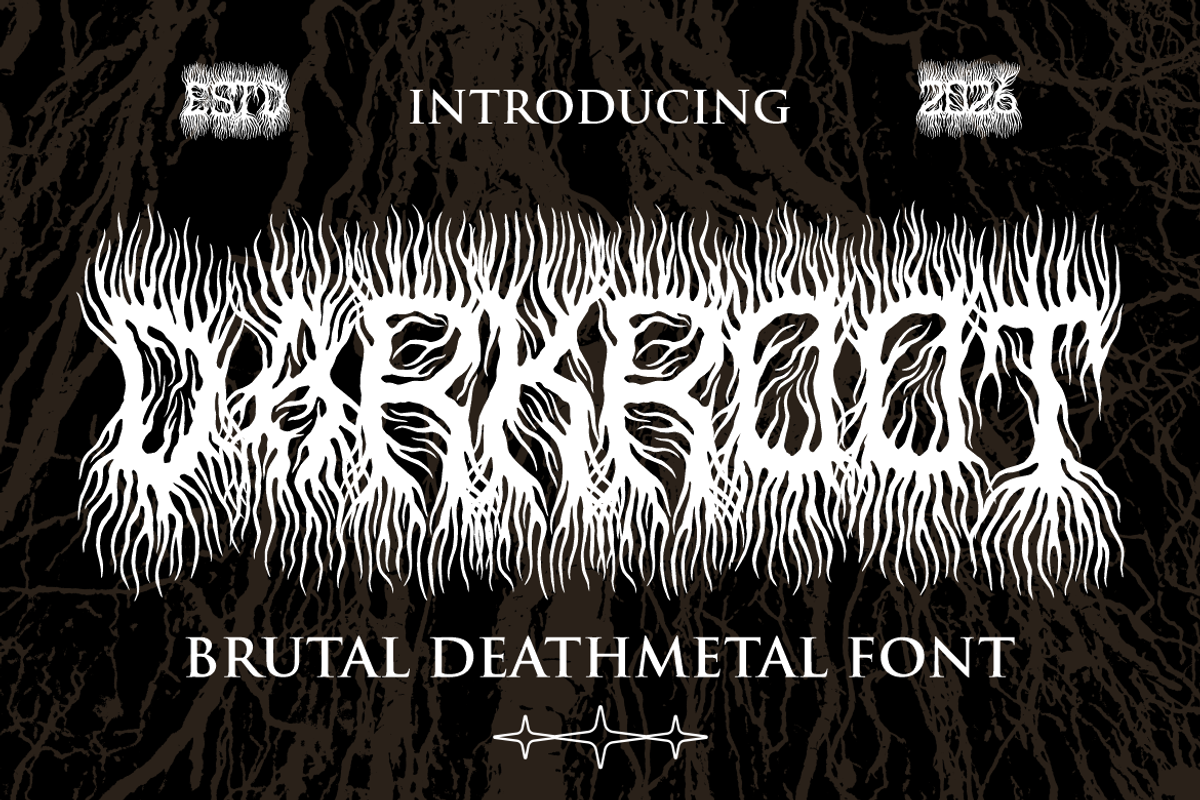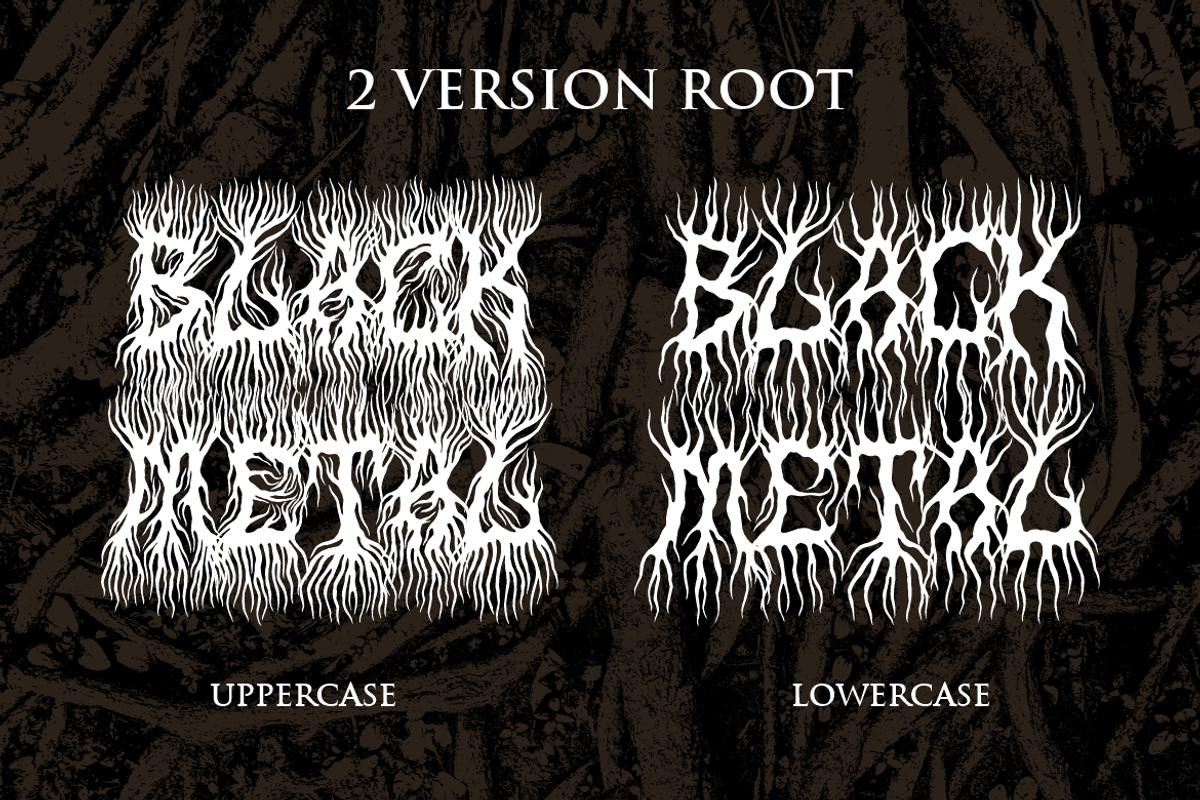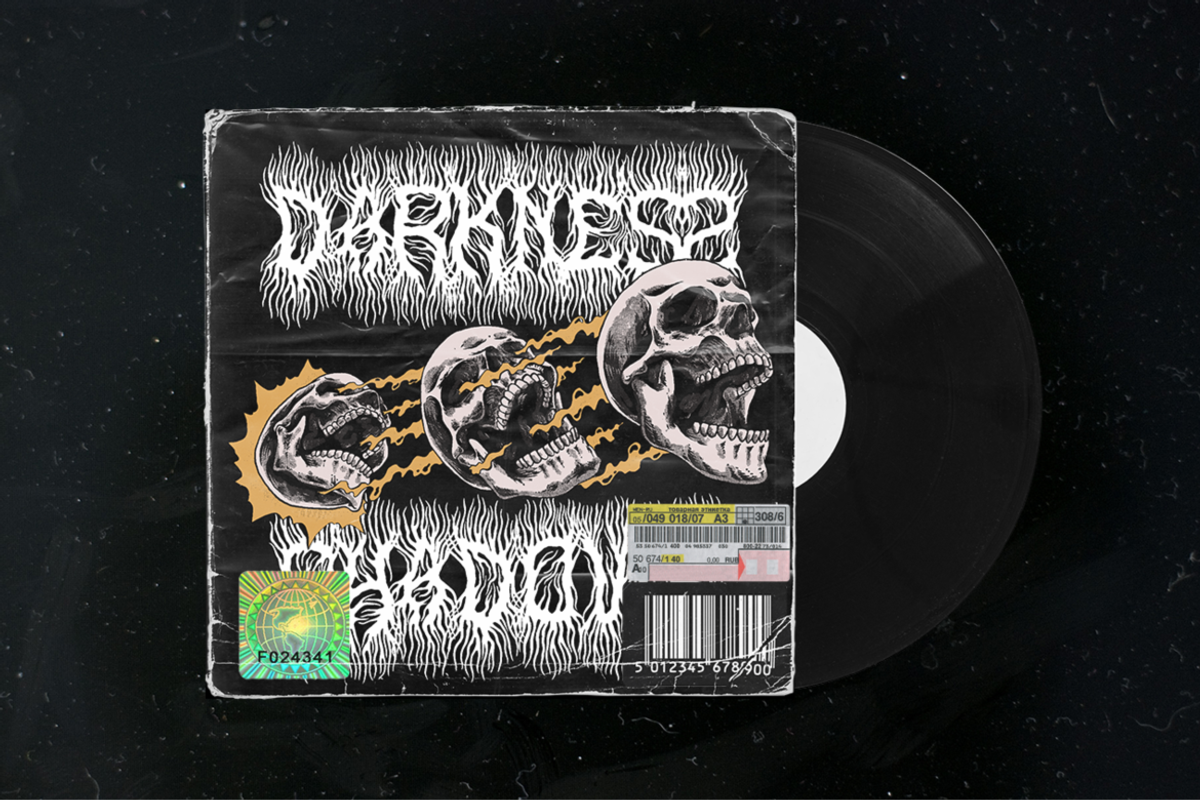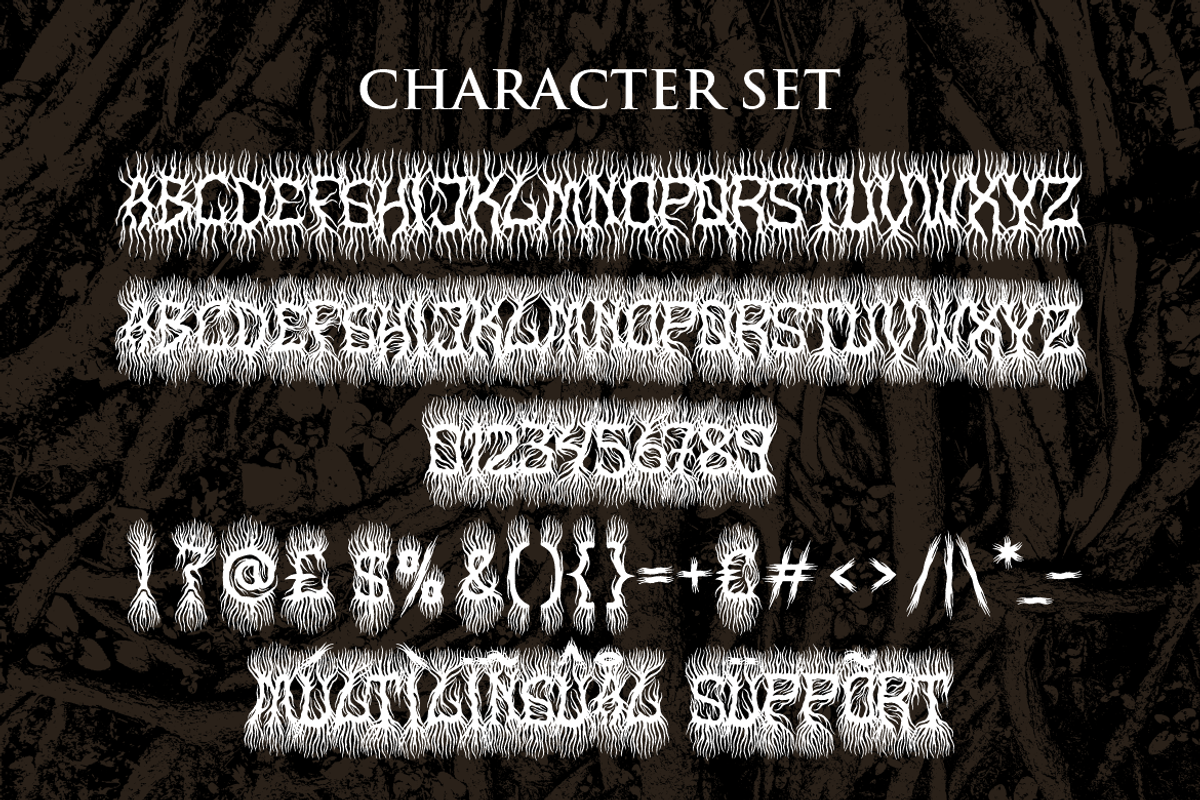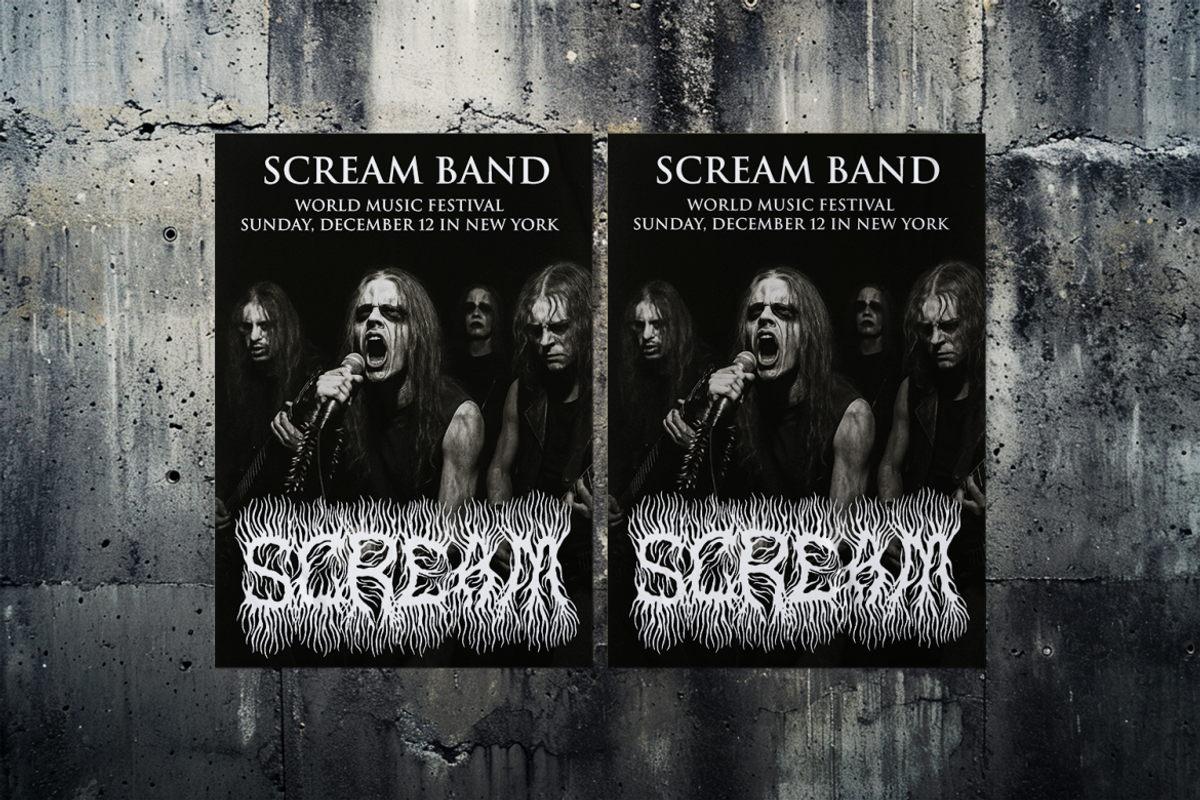
Dark Root Brutal Deathmetal Font
Dark Root Brutal Deathmetal Font is a display typeface designed to deliver raw intensity and uncompromising character. Each letterform is constructed with tall proportions and narrow inner spaces, creating a dominant vertical presence. Strokes appear uneven and organic, with sharp spikes and root-like extensions growing outward and downward. Thickness varies across characters, adding visual tension and a hand-forged feel. The texture feels rough and alive, as if carved or grown rather than drawn. Negative spaces are irregular and tightly packed, reinforcing a dense and intimidating rhythm. Uppercase and lowercase styles are designed separately, allowing controlled contrast and flexibility in composition. The overall structure prioritizes impact over readability at small sizes, making it ideal for bold statements.
Dark Root Brutal Deathmetal Font carries a dark, brutal, and extreme metal aesthetic rooted in blackmetal and deathmetal culture. The style feels aggressive, sinister, and primal, with influences from underground band logos and raw music scenes. This font is best used where emotion, atmosphere, and identity matter more than softness or neutrality. It performs strongly in logos, band branding, album titles, posters, headlines, packaging, stickers, and film titles. It also fits editorial covers, merchandise graphics, and promotional visuals that demand attention. Dark Root Brutal Deathmetal Font helps projects stand apart by projecting power and authenticity. Designers can use it to communicate rebellion, darkness, and intensity without relying on decorative extras. The font works as a visual voice for music, events, and brands that embrace raw energy and uncompromising style.